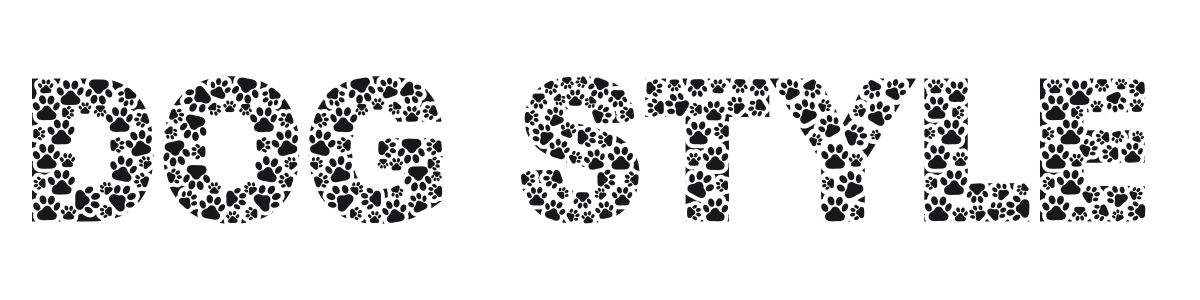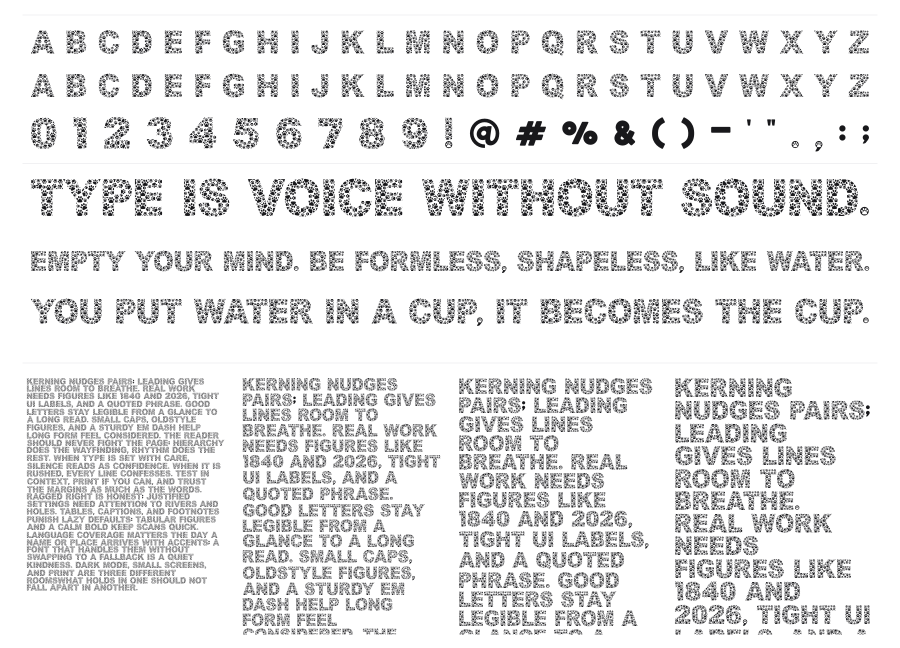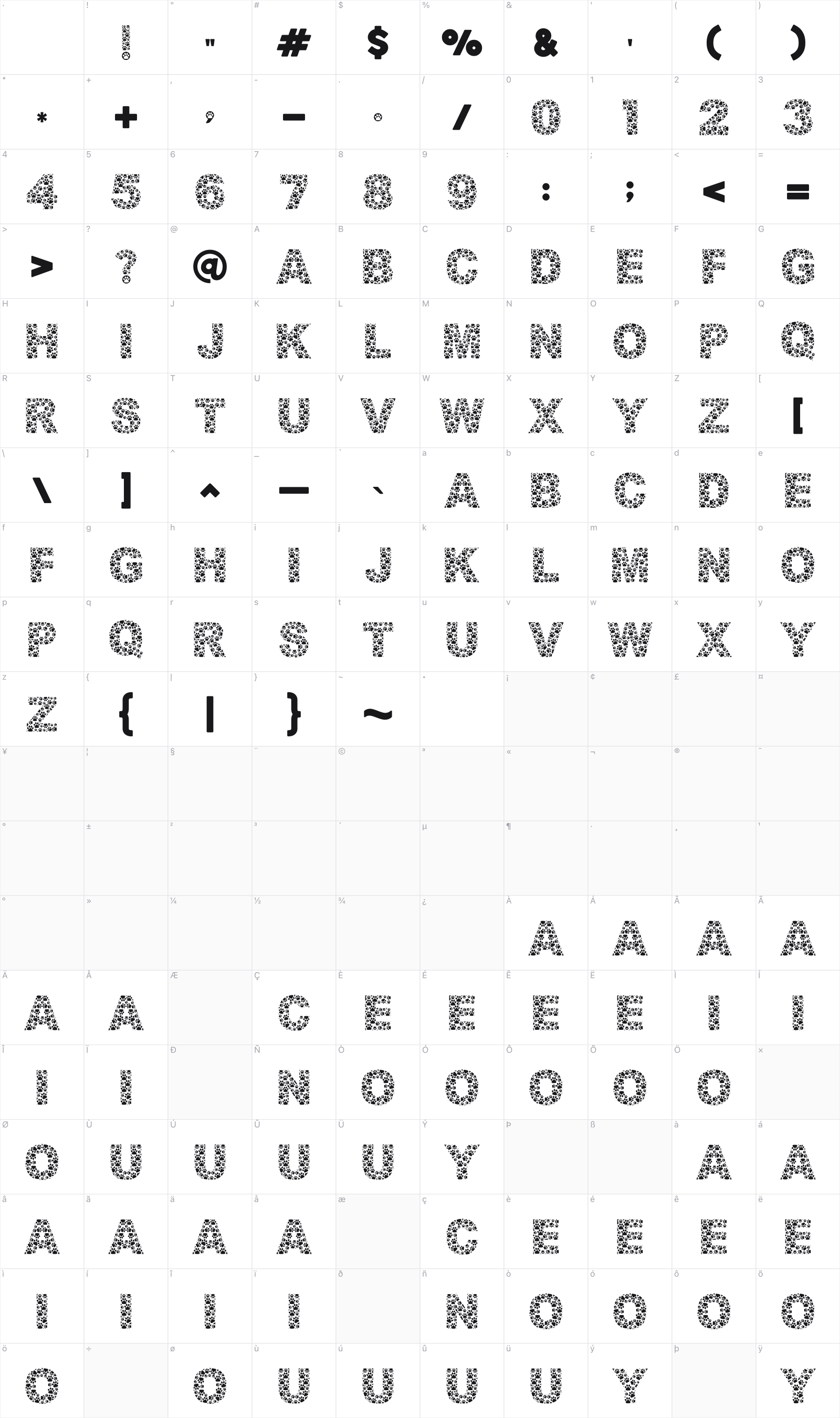
Dog Style
Dog Style is a novelty display font where every character is built from tiny dog paw prints packed together to form the letter shapes. The result is bold and chunky, instantly communicating a pet-themed world. Best used large, where the paw print texture reads clearly and the concept lands.